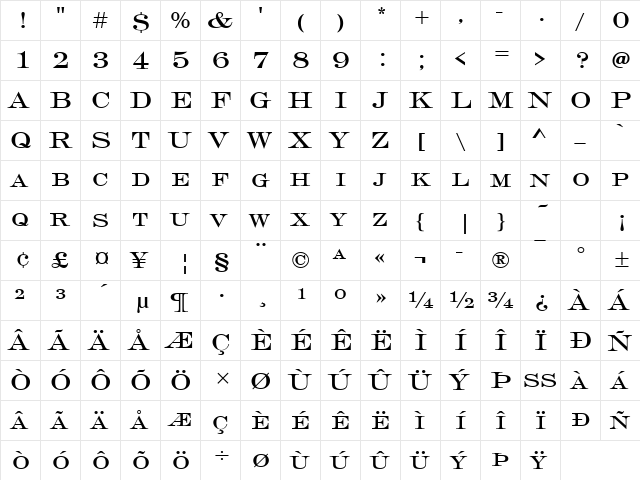
Engravers Becker Regular
Design Context for Engravers Becker Typeface
Engravers Becker is a composed and adaptable typeface that performs quietly and consistently across a wide range of design contexts.